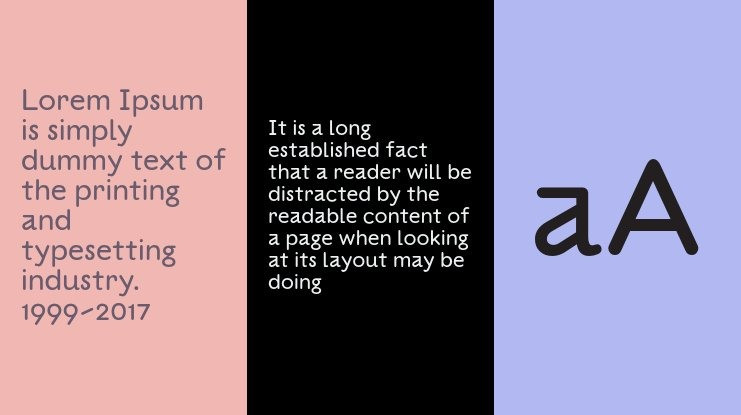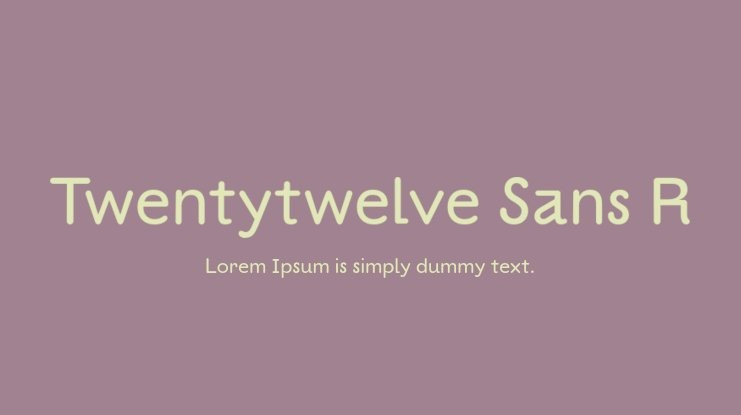
Twentytwelve Sans R Font
Twentytwelve typefaces are the outcome of my project at the Jan van Eyck Academie in 2012. There’re two sets of numbers: lowercase proportional and uppercase tabular (OpenType Stylistic Set 1).